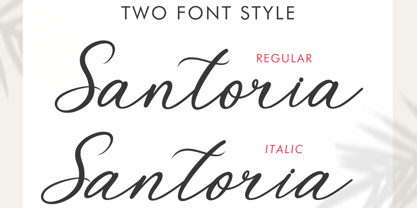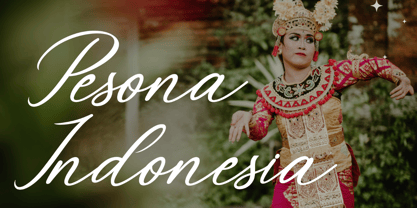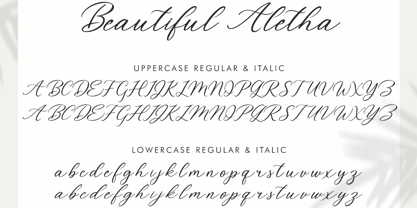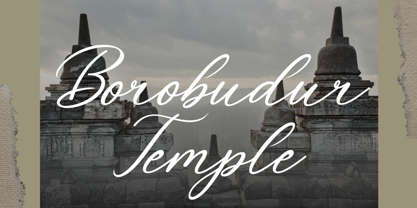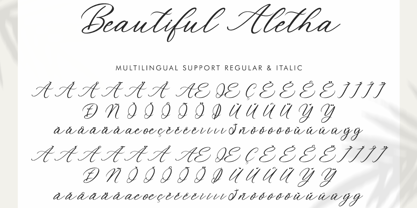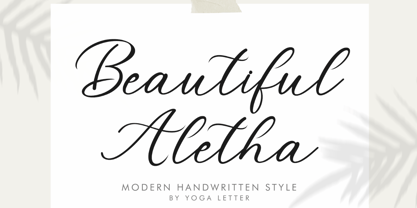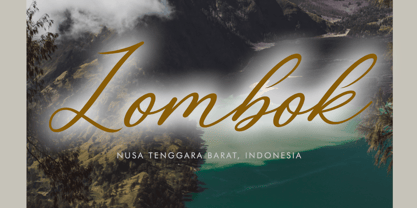
Beautiful Aletha Italic
by Yoga Letter
The Beautiful Aletha Italic Font Family was designed by Isroni Yoga Prasetya and published by Yoga Letter. Beautiful Aletha Italic contains 2 styles and family package options. More about this family
"Beautiful Aletha" is a beautiful and elegant handwritten font. It comes in two styles: regular and italic. It supports uppercase and lowercase letters, numerals, punctuations, and multilingual support. It's perfect for weddings, florists, business branding, invitations, Christmas, social media, print, banners, posters, branding, stickers, and more.
Designers: Isroni Yoga Prasetya
Foundry: Yoga Letter